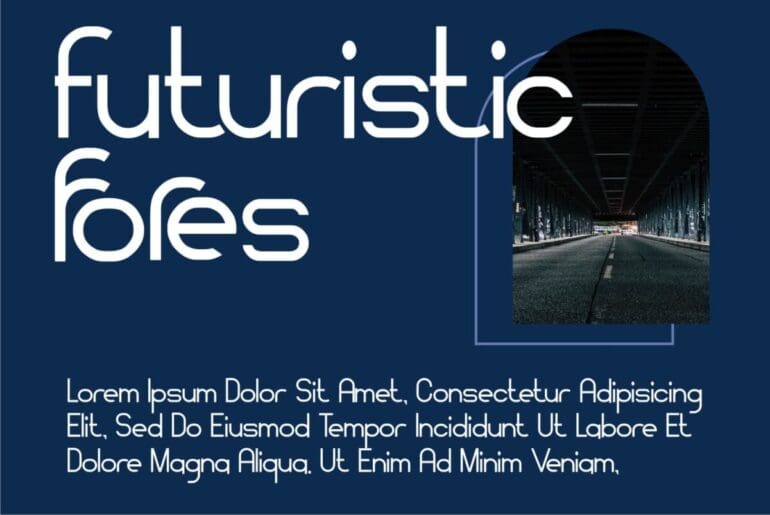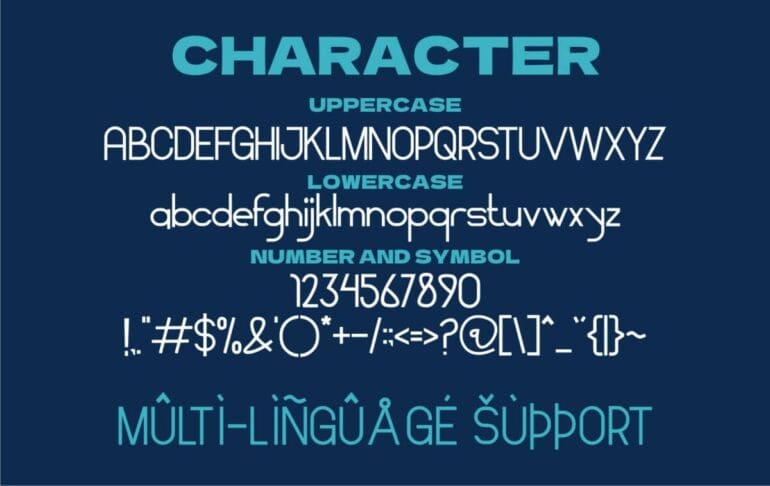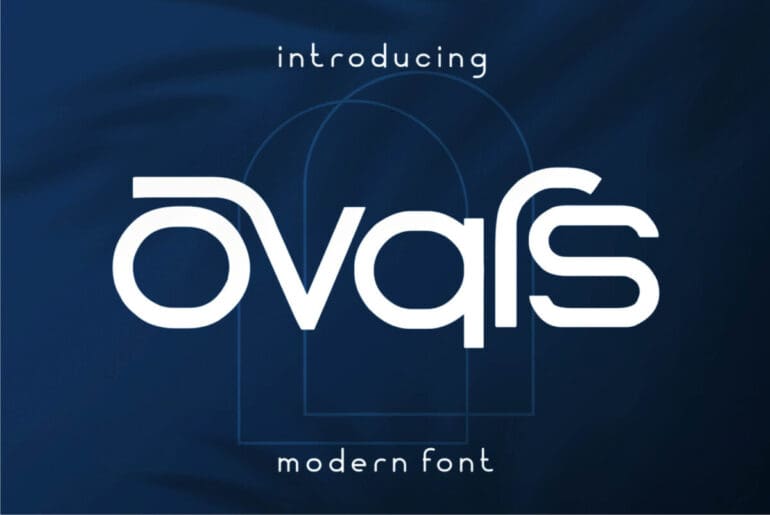
Ovars Font
Ovars is a cool and techno-looking Display Font. This font is ideal for writing web designs, business cards, or anything else that requires a futuristic, unique touch.